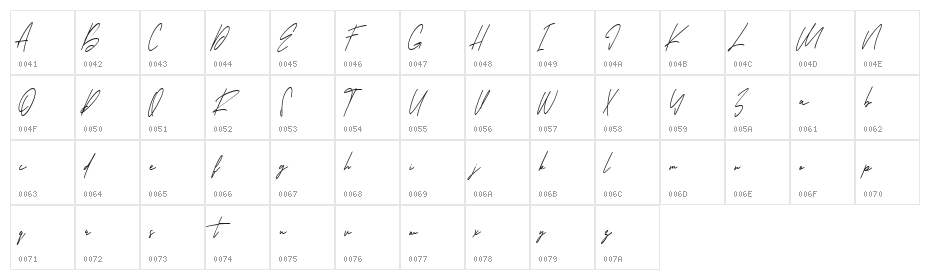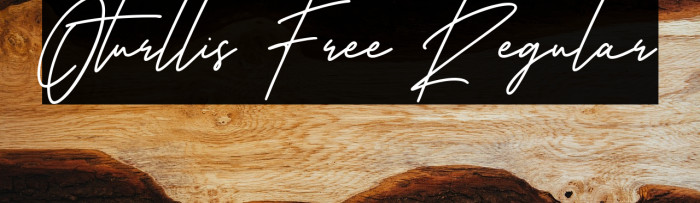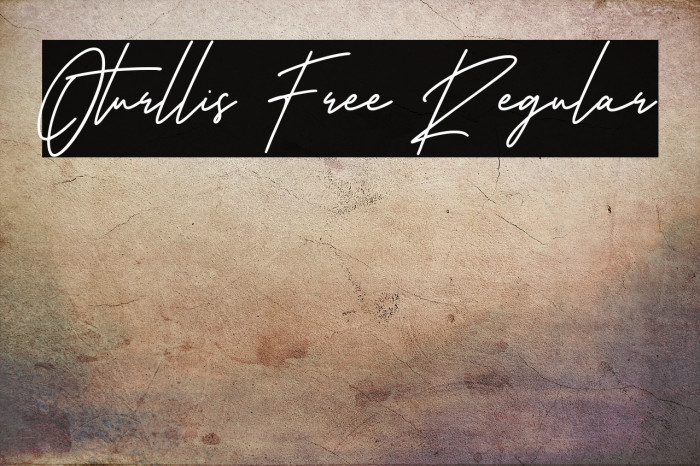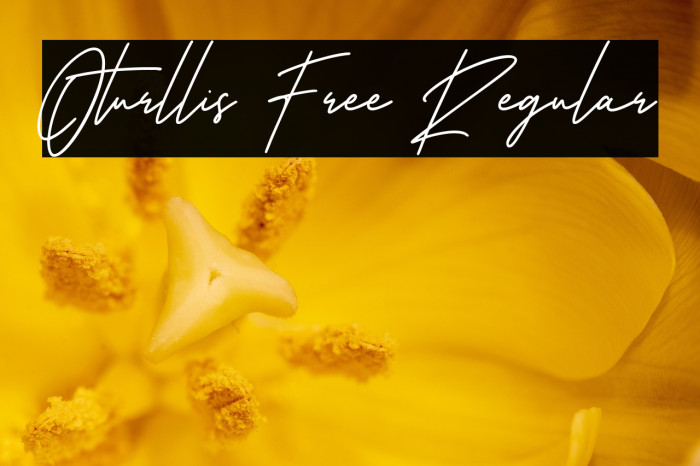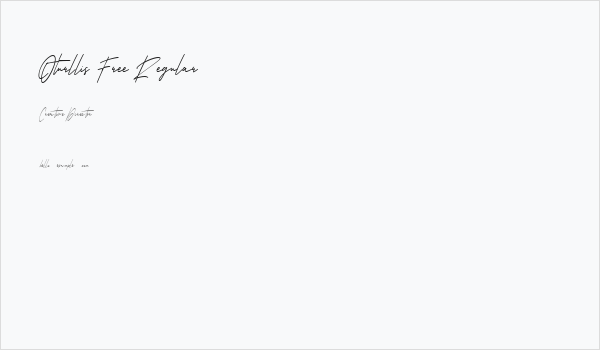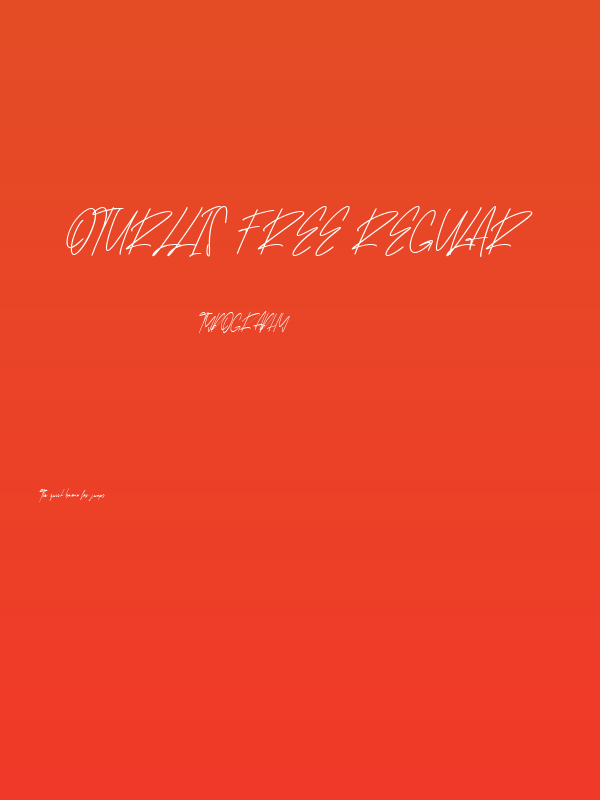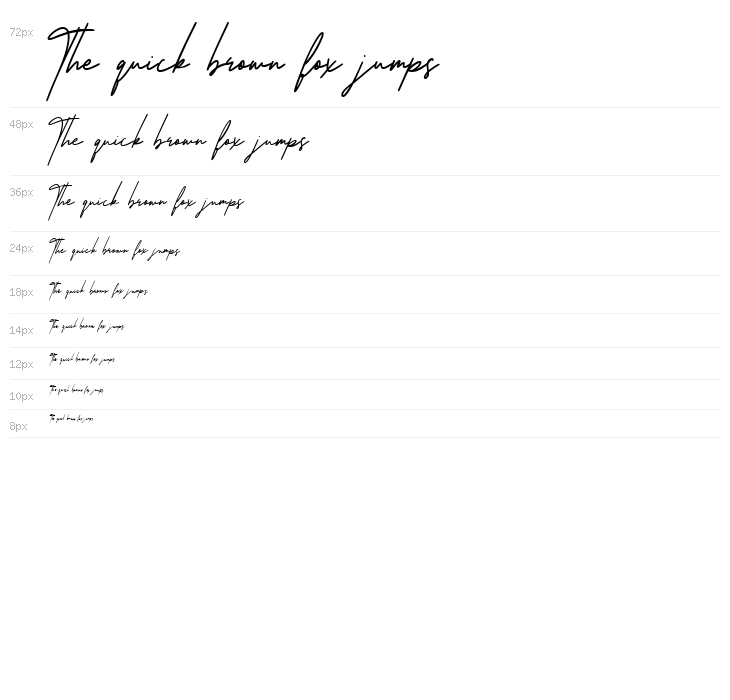
Oturllis Free Regular Font
Oturllis Free Regular Description
This font features a dynamic and expressive handwritten style, characterized by its fluid and flowing letterforms. The strokes are thin and elegant, giving it a sophisticated and artistic appearance. The uppercase letters are bold and prominent, while the lowercase letters maintain a consistent flow, enhancing readability. The font's overall design is modern and stylish, making it suitable for creative projects. It includes a full set of uppercase and lowercase letters, numbers, and a selection of special characters, providing versatility for various design needs.
| Proposed Projects | Ideal for branding, invitations, greeting cards, and artistic projects. |